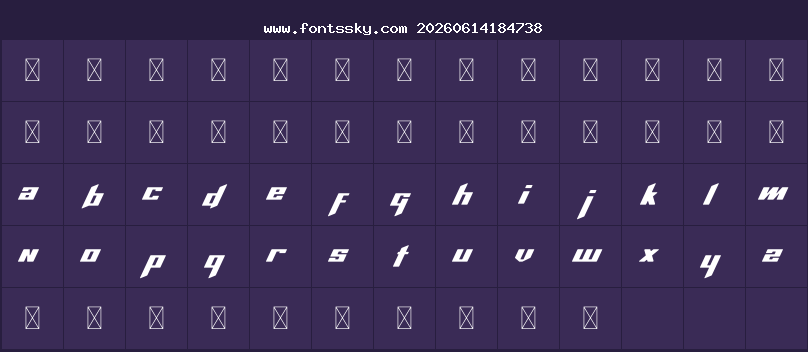
Ammonite Preview
• Font Name: Ammonite
• Full Font Name: Ammonite
• Designer: Dan Bennett
About Ammonite.otf
Ammonite.otf is a modern, elegant sans-serif font designed for ultimate readability and visual harmony. Perfect for branding, headlines, web design, and print materials.